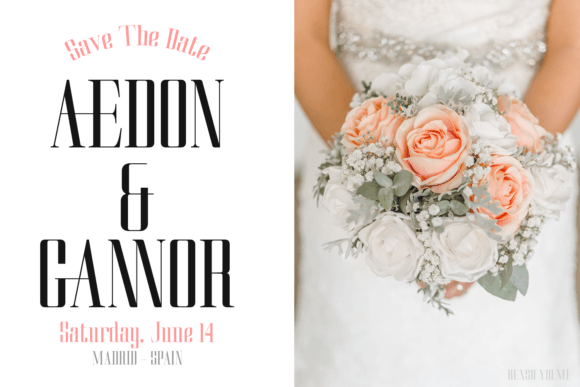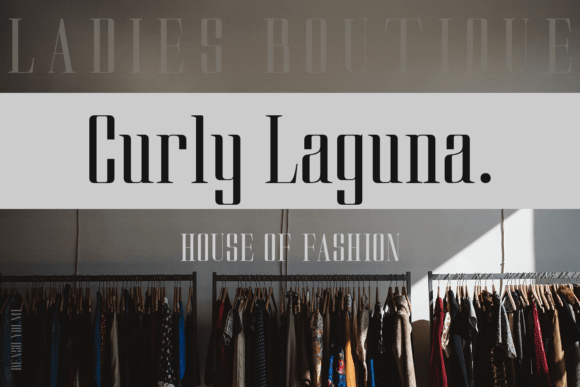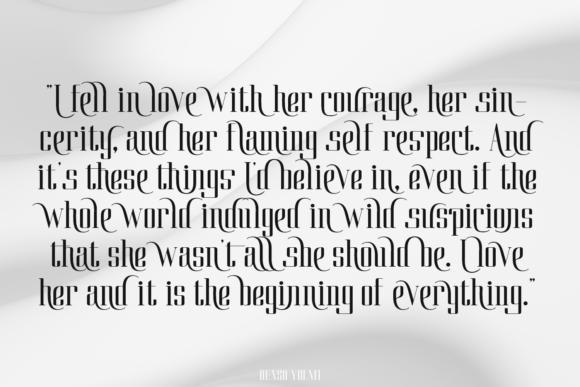
Introduction to Benso Yolmi Font
Benso Yolmi is a clean and modern minimalist serif font designed for clarity and simplicity.
With its sleek lines and balanced letterforms, it conveys a timeless elegance that suits a wide range of applications .
Key Features of Benso Yolmi Font